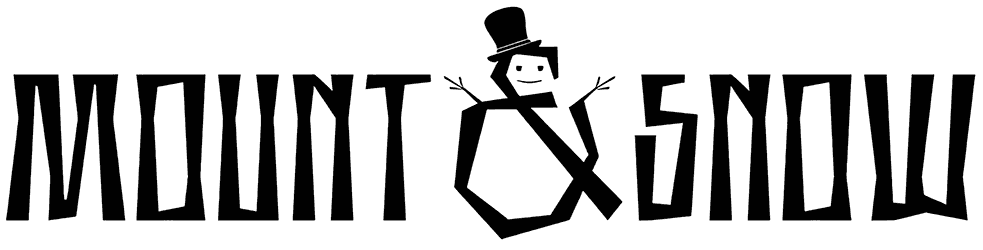
Mount & Snow Font
Add a chilling and mesmerizing visual to your design with this winter font and reveal your creativity. The characters of this Christmas font are adorable and funny and you can count on them to make your holiday postcard unique. Test the Mount & Snow font for your new idea and have a surprising presentation.